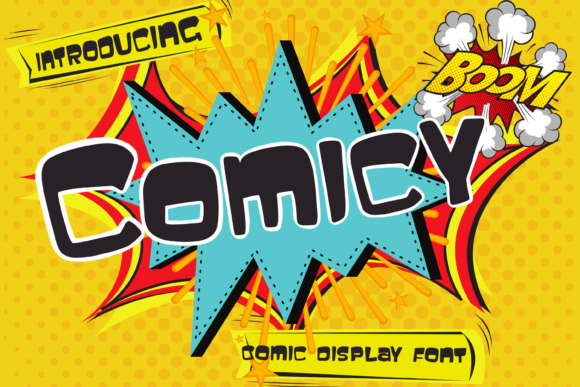
Unlock the Magic of Your Designs with Comicy Font
Do you remember that moment when a single font choice made all the difference in your design project? You were brainstorming ideas, tweaking colors, and fine-tuning every detail, but something was missing. Then, you stumbled upon the perfect font – the one that brought your design to life and made it truly unforgettable. For many designers, this moment is a game-changer.
That’s where Comicy Font comes in – a fun and retro display font that’s sure to brighten up your designs. Whimsical and a bit quirky, Comicy Font adds a touch of personality to any project. Whether you’re creating a playful ad, a whimsical illustration, or a retro-inspired poster, this font will help you achieve the perfect balance of style and charm.
By incorporating Comicy Font into your design workflow, you’ll be able to add a unique touch to your projects and stand out from the crowd. Its versatility and playfulness make it an invaluable asset for designers looking to add some creative flair to their work.
Key Features of Comicy Font
- Font Family: Comicy Font is a comic book-inspired sans-serif font family available in 6 styles (Thin, Light, Regular, Medium, Bold, Black) and 3 widths (Condensed, Normal, Expanded).
- Unique Characteristics: Comicy Font features a distinctive, hand-drawn aesthetic with bold lines and exaggerated letterforms, making it ideal for use in comic books, graphic novels, and other forms of visual storytelling.
Comicy Font Review
Overall, I was excited to dive into the Comicy Font and see if it lived up to its playful name. ✨ One of the things I appreciated right off the bat was the level of customization available. You can easily adjust the font’s thickness, texture, and color to match your project’s aesthetic. The font’s hand-drawn feel also adds a nice touch of personality to your designs.
- ✨ Customizable thickness and texture
- ✨ Hand-drawn feel adds personality to designs
- ✨ Easy to adjust color
However, there are some limitations that may be a turn-off for some designers. ⚠️ The font’s readability can be a bit of an issue, especially at smaller font sizes. Additionally, the font may not be the best choice for large blocks of text, as the hand-drawn feel can make it difficult to scan.
- ⚠️ Readability issues at smaller font sizes
- ⚠️ Not ideal for large blocks of text
Overall, I would say that the Comicy Font is a fun and versatile choice for designers looking to add a touch of whimsy to their projects. While it may have some limitations, it’s a great option for headings, titles, and other smaller text elements. Just be sure to use it judiciously and in combination with other fonts to achieve the best results.
Comicy Font is ideal for:
- Comic book-style text and graphics